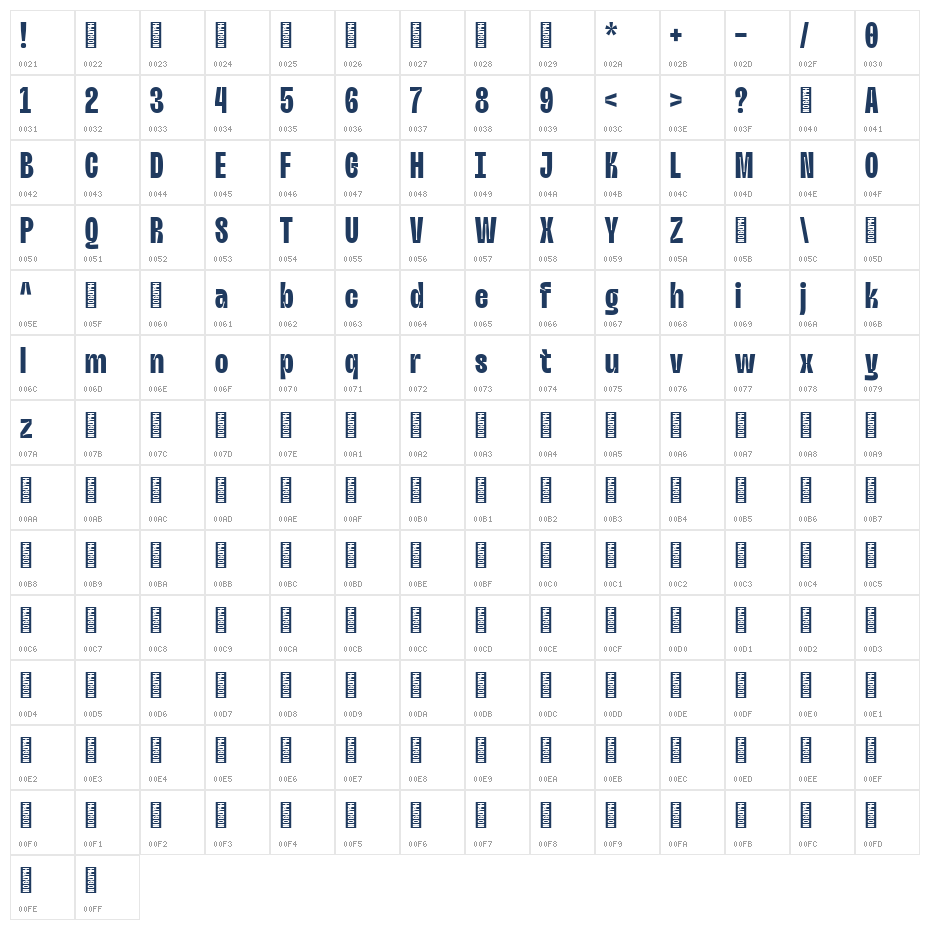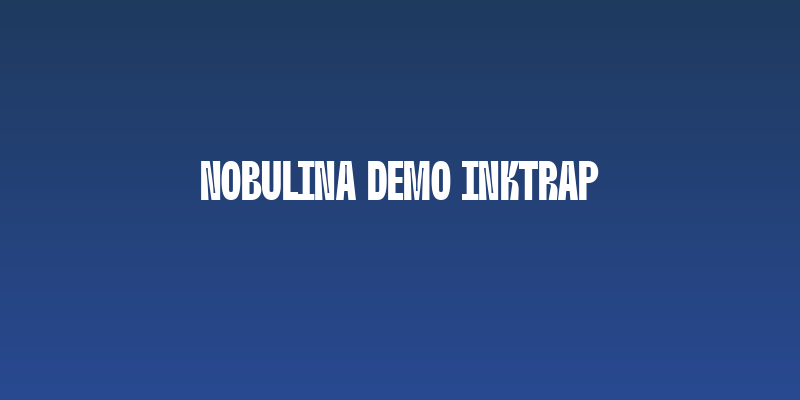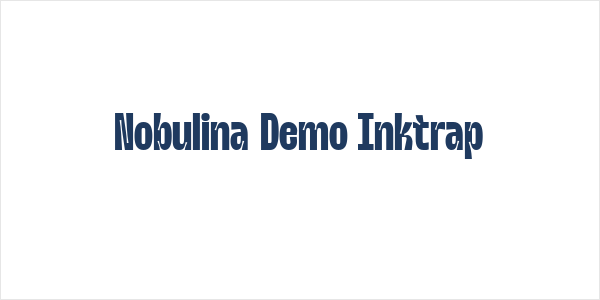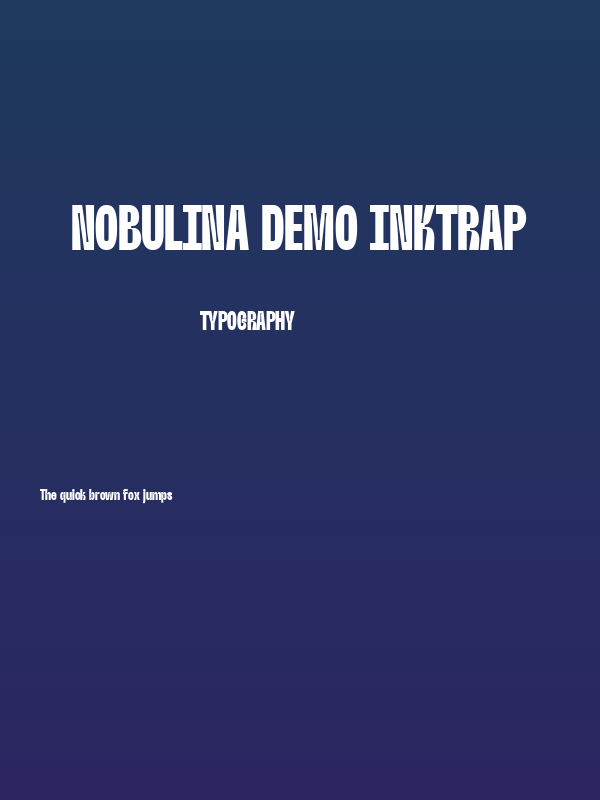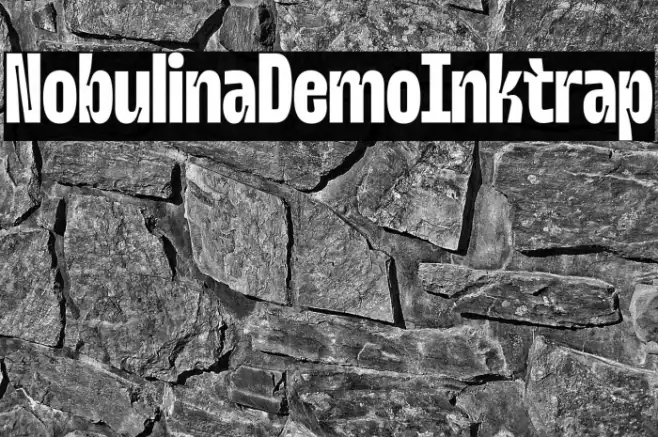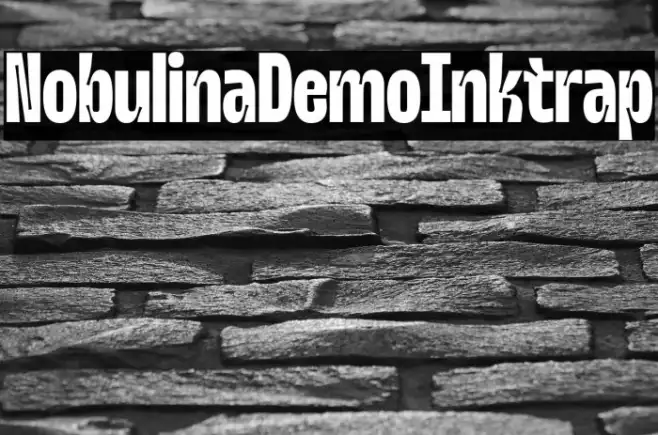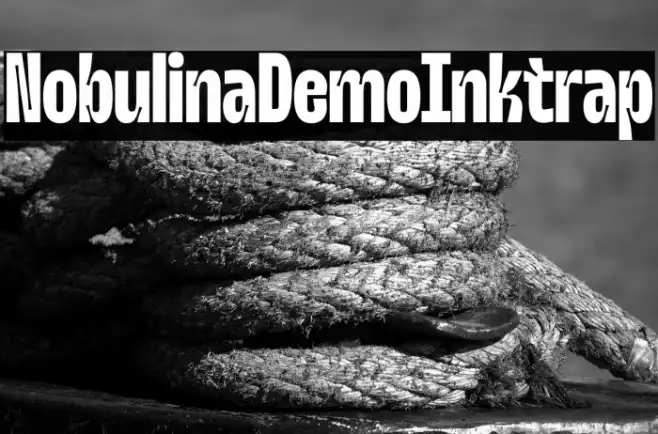
Nobulina Demo Inktrap Font
Nobulina Demo Inktrap Description
Bold, blocky, sans-serif font with a strong, geometric appearance. The characters are thick, uniform in weight, and have a modern, industrial style.
| Overall Style | Modern, Geometric |